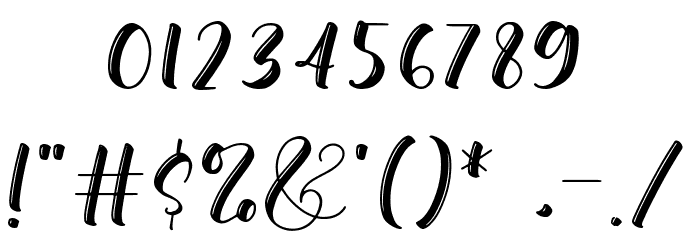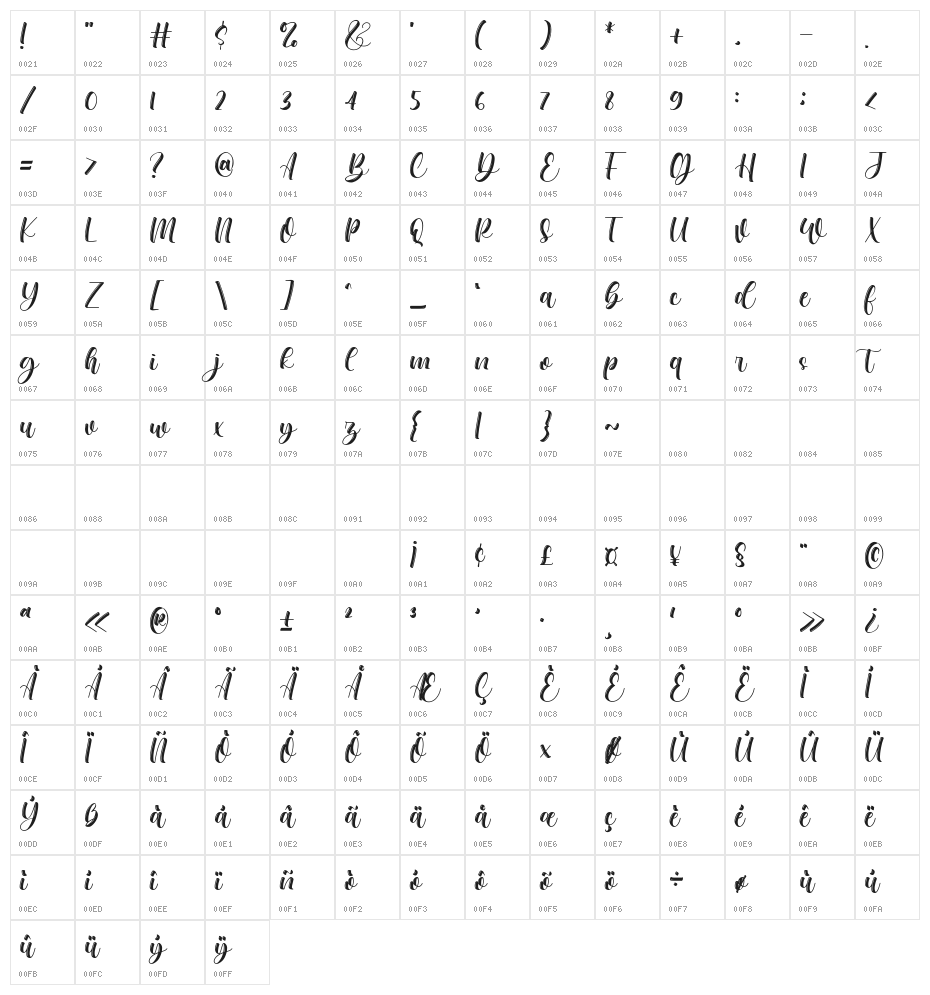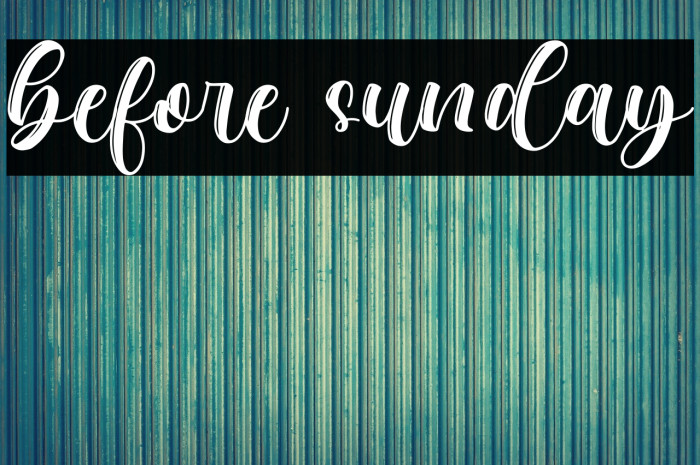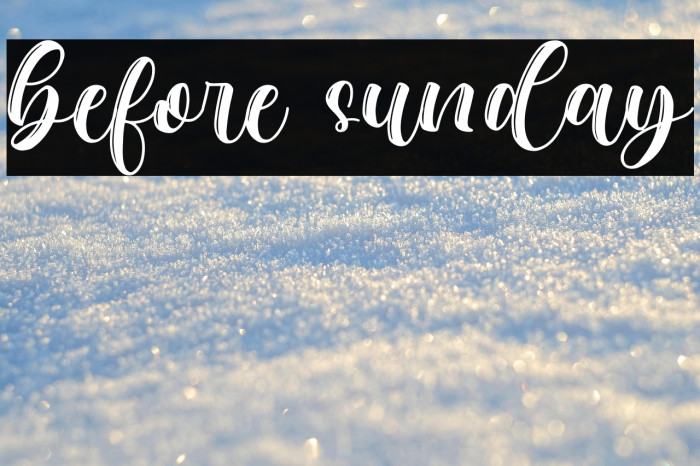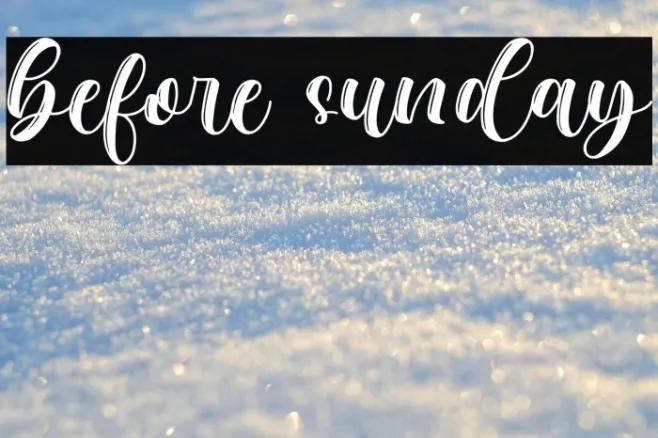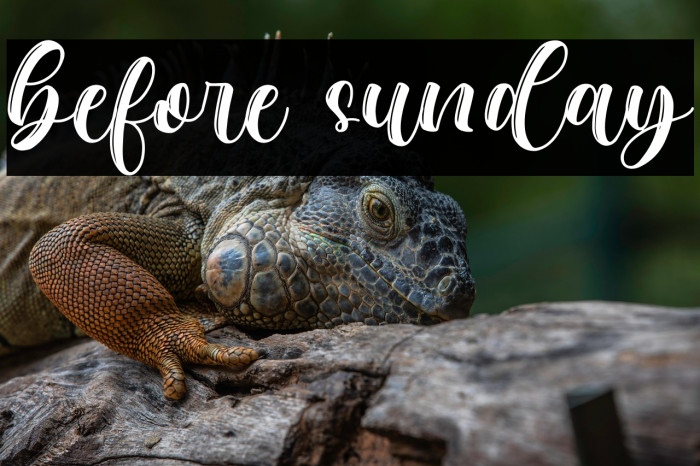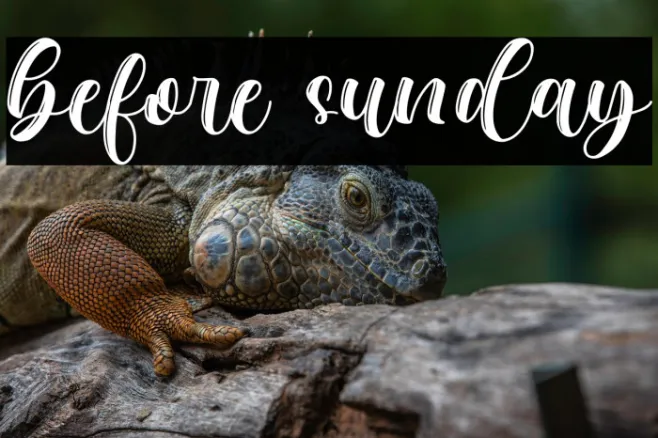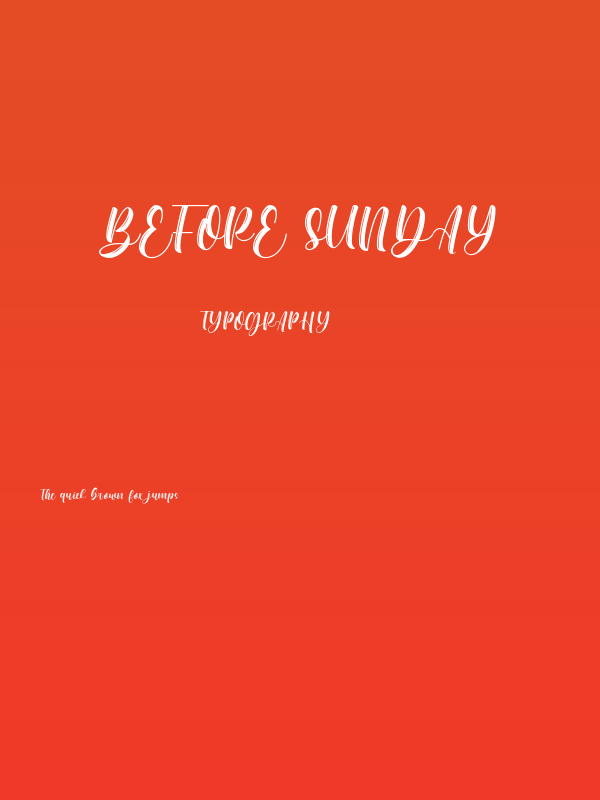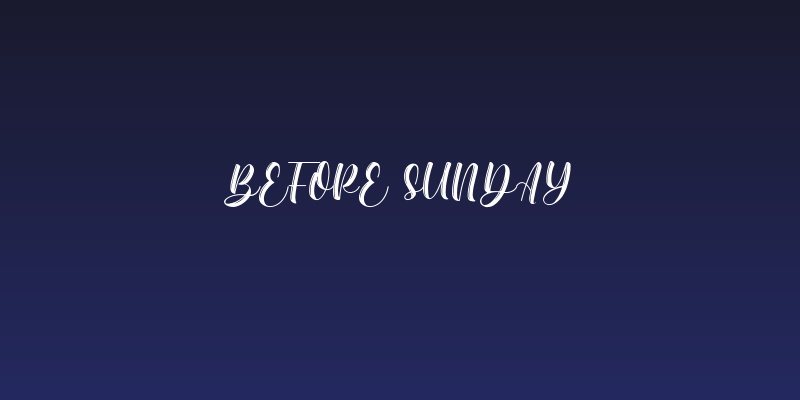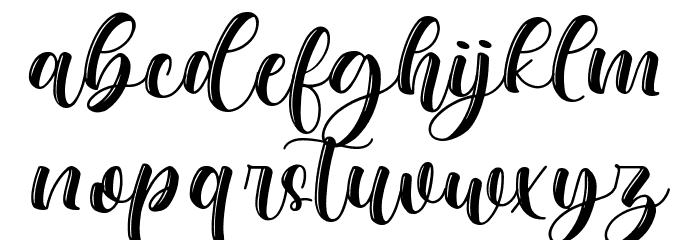
before sunday Font
before sunday Description
This font exudes a lively and elegant script style, characterized by its flowing, cursive letterforms that mimic the fluidity of handwriting. The uppercase letters are bold and sweeping, with dramatic flourishes that add a sense of movement and grace. The lowercase letters maintain a consistent rhythm, with rounded forms and smooth connections that enhance readability. The numerals are equally stylish, featuring a balanced design that complements the overall aesthetic. Special characters are thoughtfully integrated, maintaining the font's cohesive look. This font is perfect for projects that require a touch of sophistication and personality.
| Use Case | Logos, Invitations, Headlines |
| Proposed Projects | Ideal for wedding invitations, branding, greeting cards, and elegant packaging. |